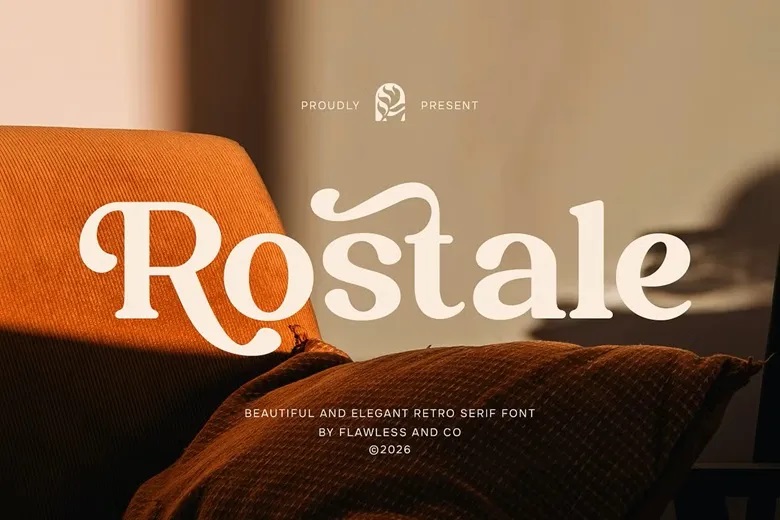
Rostale Font
Rostale is a retro serif font that combines the elegance of classic typography with a modern feel. Its refined serifs, smooth curves, and vintage-inspired shapes give it a graceful, timeless look.
Its unique style balances nostalgic charm and contemporary elegance, making it a great option for high-end design projects.
Rostale Serif Font